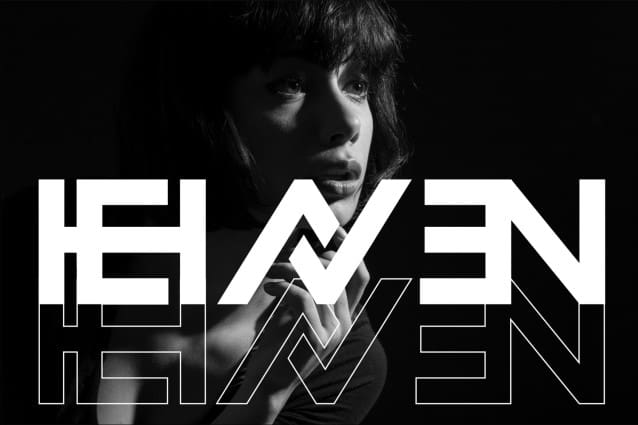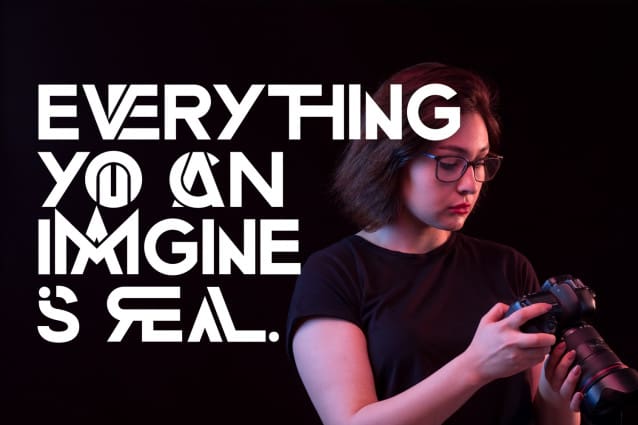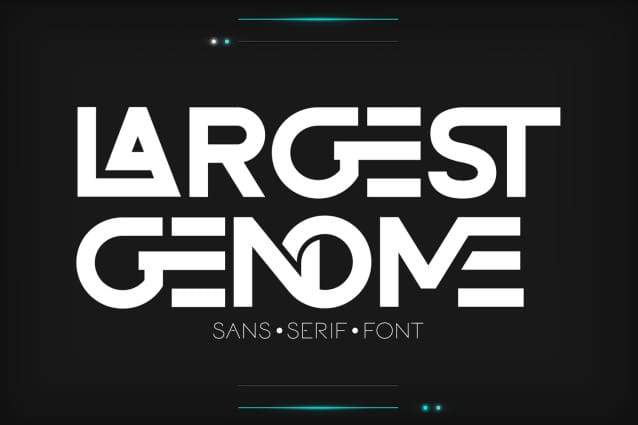
Largest Genome Font
Largest Genome Font – Ligature Font – modern geometric font, a classic ligature sans-serif font with that extra touch of elegance. This sophisticated editorial font elevates your work through it’s clean and classic visuals as well as swoon-worthy ligatures that instantly enhance your designs. This is a timeless sans serif typeface with a clean and modern feel. It’s a perfect choice for logo designs, branding, packaging, posters, social media posts, and so on.
To make it look more unique, here we prepared some ligatures:
AC AD AL AN AR AS AT AU AV BE CA CE CH CO CT DE DI EA EC ED EE EM EN EP ER ES FE FO FR ET GE HA HE HI HO IE IC IL IN IR IS IT JU KE LA LE LI LL LO LY MA ME MI NC ND NE NG NO NS NT OC OF OM ON OO OP OR OT OU OW PR RA RD RE RI RO RS RT SE SH SI SO SS ST TA TE TH TI TO TR TT UM UN UR VE WI WO